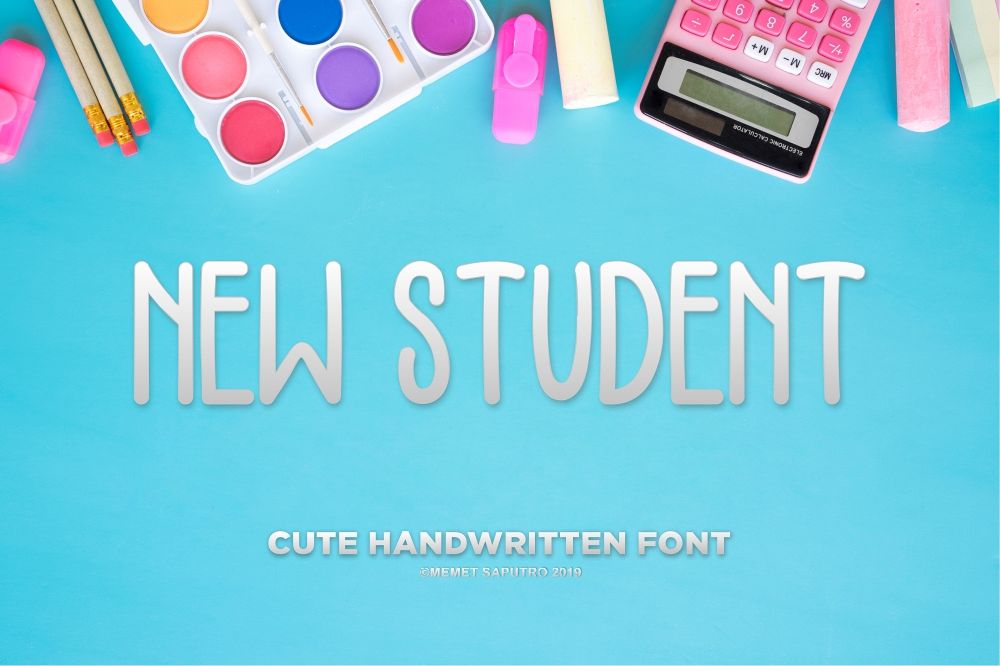
NEW STUDENT
NEW STUDENT is a cute and playful handwritten font.  It has a cartoonis style, and childish.
It good for some comic or cartoon design, and credit text in video.